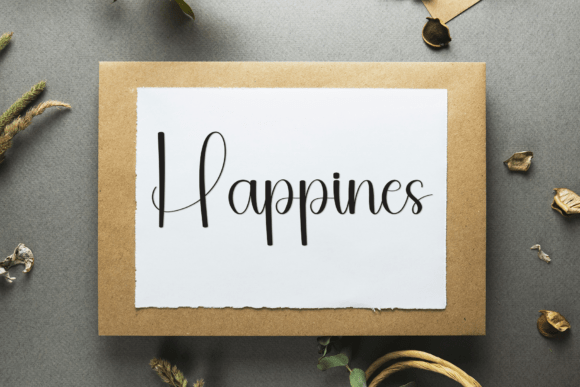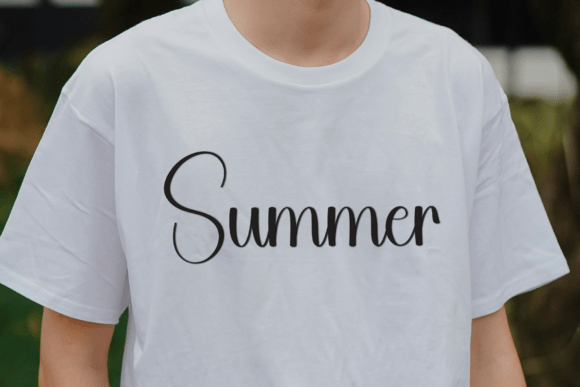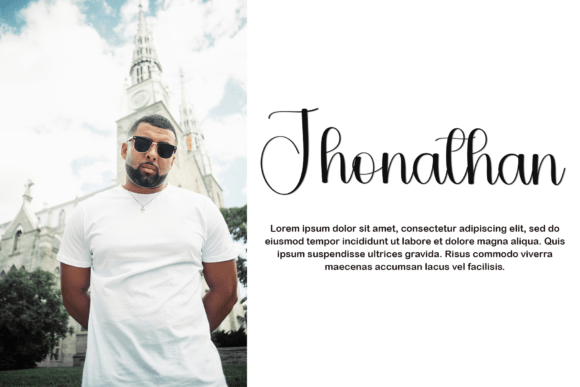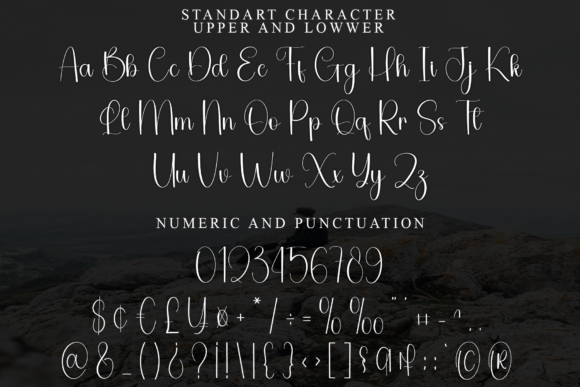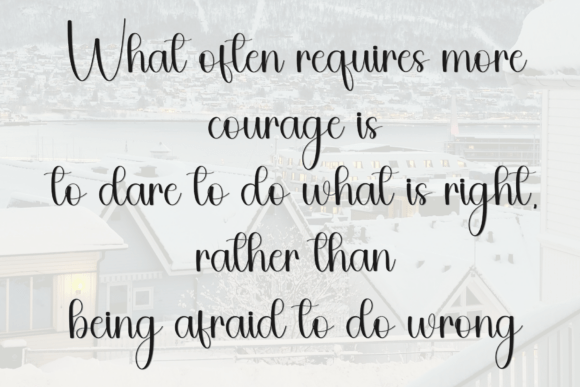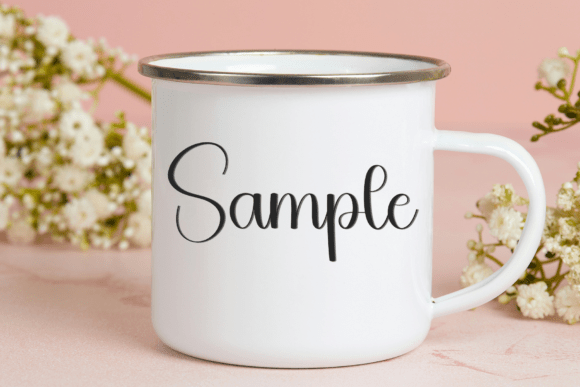
Discover the Elegance of Black History Font: A Timeless Addition to Your Design Arsenal
Are you on the hunt for a font that exudes elegance, sophistication, and a touch of timelessness? Look no further than the Black History Font, a beautiful, flowing handwritten font that is sure to capture your heart. With its incredibly distinct style, this font is perfect for designers and crafters looking to add a unique touch to their projects.
The Story Behind Black History Font
Black History Font is more than just a font – it’s an expression of art and history. This elegant font is inspired by the rich cultural heritage of the African American community, and its name pays homage to the significance of Black History Month. The font’s creator aimed to craft a typeface that not only celebrates this heritage but also provides a versatile tool for designers to create stunning works.
What Makes Black History Font Stand Out?
So, what sets Black History Font apart from other fonts out there? Here are a few features that make it a standout addition to your design arsenal:
- Elegant Touch: Black History Font boasts an elegant, cursive script that adds a touch of sophistication to any project. Its flowing lines and curves create a sense of movement and fluidity, making it perfect for designs that require a bit of flair.
- Timeless Style: Unlike trendy fonts that quickly go out of style, Black History Font has a timeless quality that ensures your designs will remain relevant for years to come. Its classic look and feel make it an excellent choice for projects that require a sense of tradition and heritage.
- Versatility: Whether you’re working on a logo, branding materials, or social media graphics, Black History Font is an incredibly versatile typeface that can adapt to various design needs. Its legibility and clarity make it suitable for both digital and print applications.
In conclusion, Black History Font is a beautiful, elegant, and timeless addition to any designer’s arsenal. With its unique blend of sophistication and versatility, this font is sure to inspire your creativity and take your designs to the next level. Whether you’re a seasoned designer or a crafty DIY enthusiast, Black History Font is an excellent choice for anyone looking to add a touch of elegance to their projects.